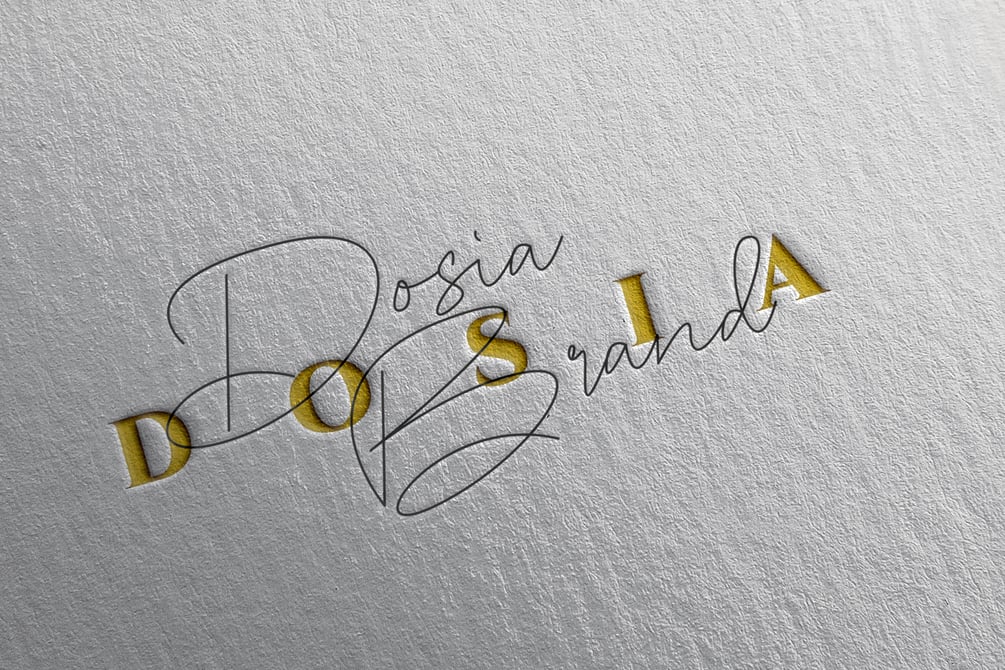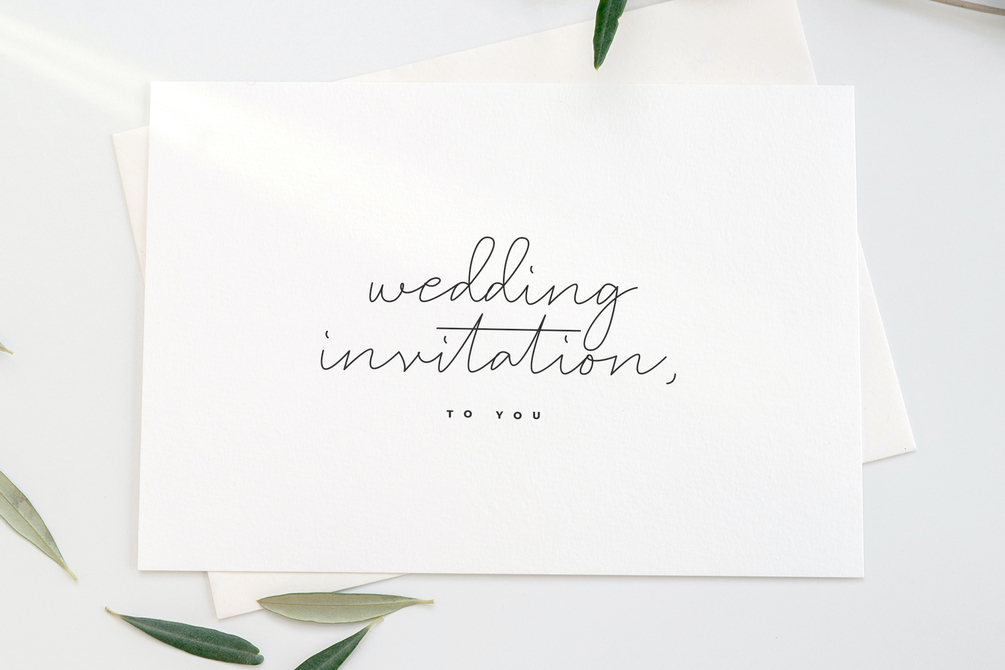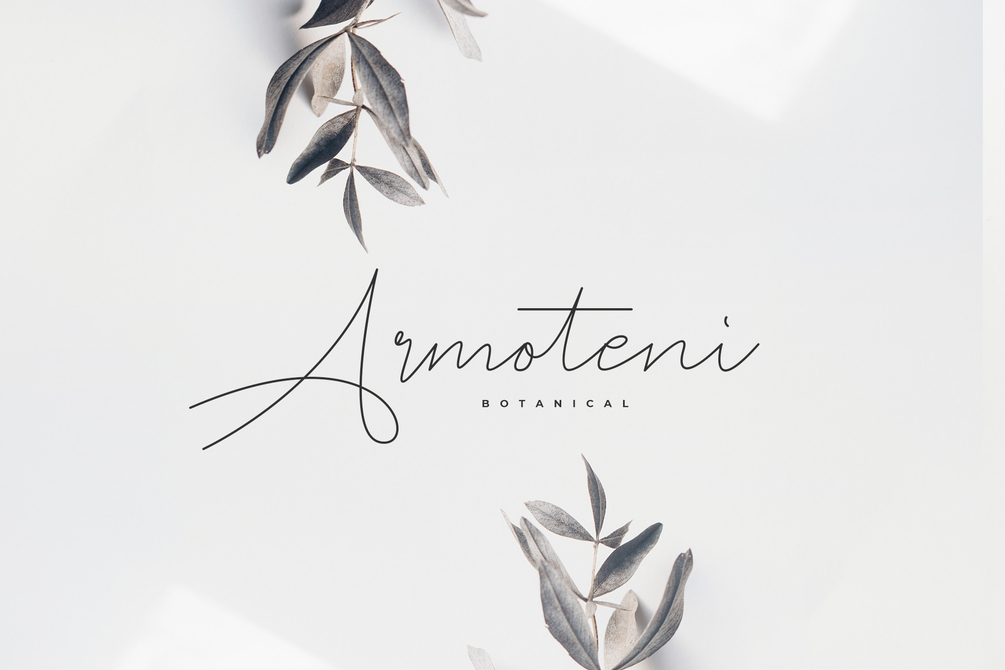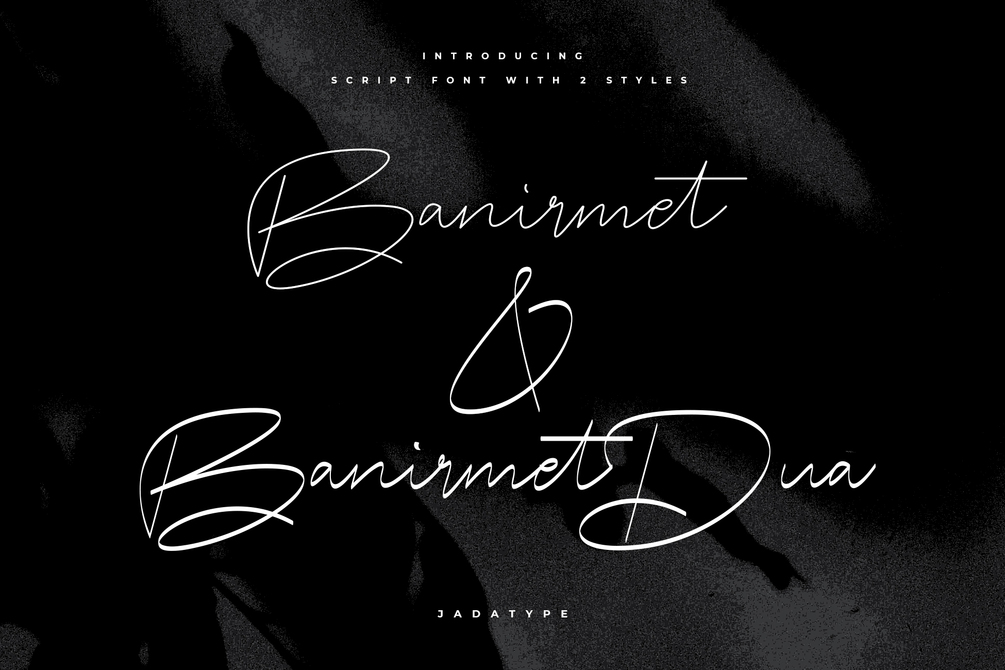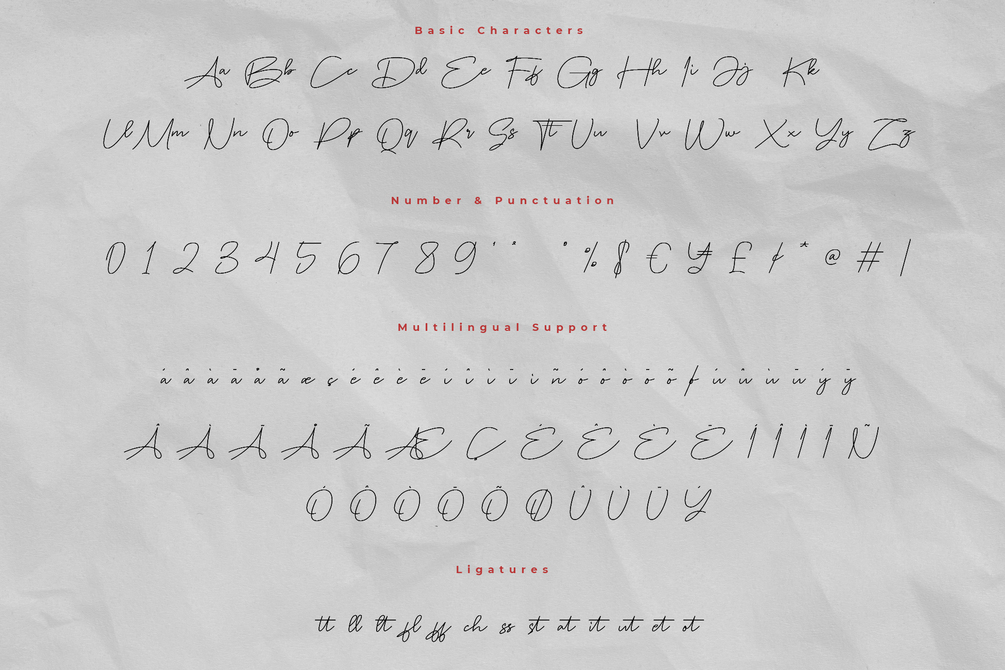
Banirmet Font
Banirmet is a script font with a thin monoline style. suitable for branding, social media, products, advertisement, and so on. contains standard English letters, numbers, punctuation, ligatures and several accents that support multilingualism.
• Banirmet & Banirmet Dua